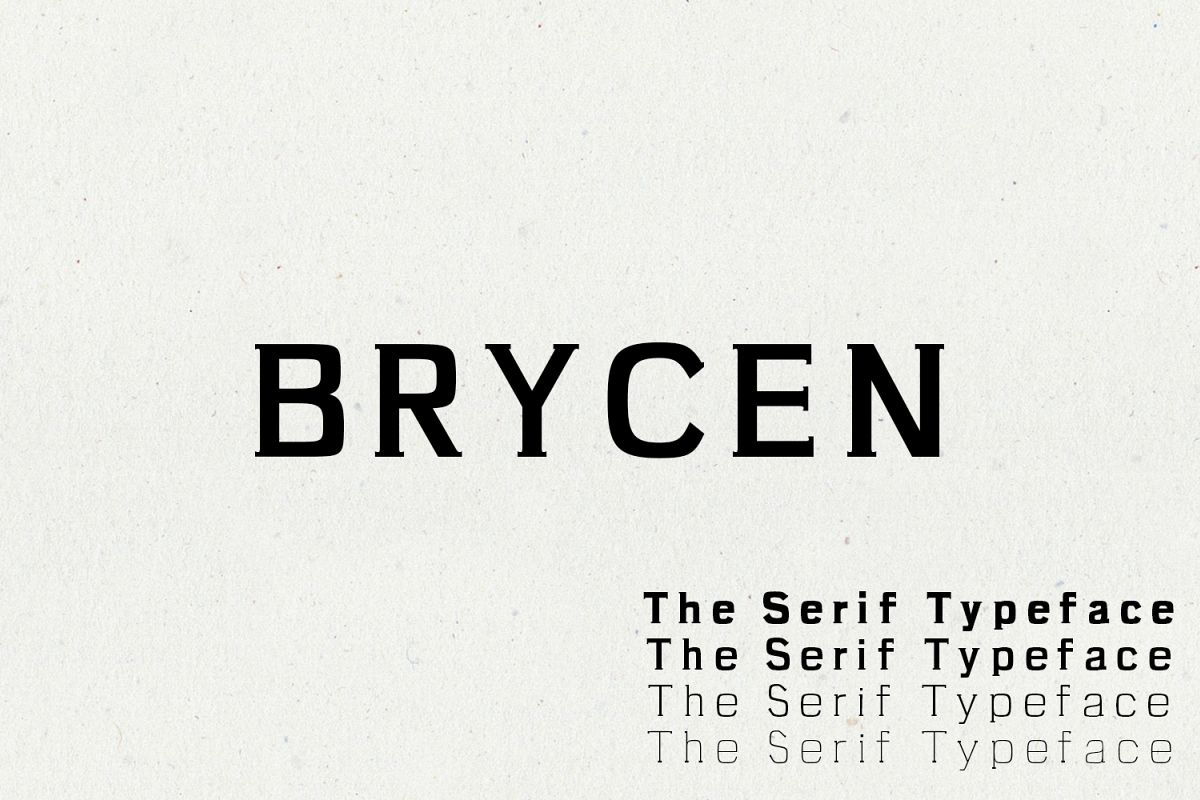
Brycen Serif Premium Font Family
Brycen Serif Premium Font Family is a clean serif font family, which contains 7 weights and It features unique and modern serif look and feel.Perfect for gorgeous logos, titles, web layouts and branding. It looks gorgeous in all caps with a wide-set spacing if you want to try a classy look, or beautiful on its own in capital and lowercase letters for something completely timeless.Included Features:
• Font Weight: Regular, Light, Light Italics, Thin, Thin Italics, Black and Black Italics
Brycen Font Features: